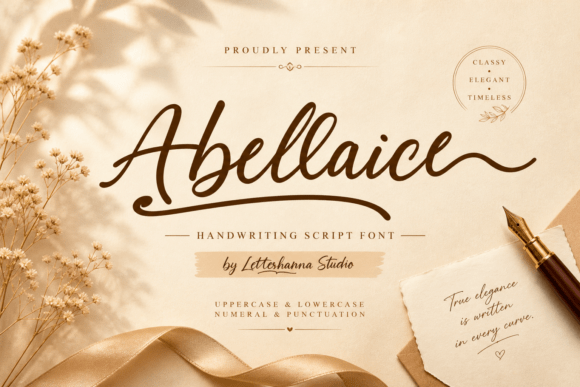
Introducing Abellaice Font: Elevate Your Designs with Elegance
Are you on the hunt for a font that exudes elegance, sophistication, and a touch of romance? Look no further than Abellaice, a stunning script font that is sure to captivate your audience. With its ravishing style and versatility, Abellaice is the perfect addition to any designer’s toolkit.
The Charm of Abellaice Script
Abellaice is a graceful script font that boasts a unique, hand-lettered feel. Its flowing lines, intricate swashes, and stylistic alternates make it an ideal choice for creating beautiful wedding invitations, stationary art, social media posts, and more. Whether you’re a designer, crafty DIY enthusiast, or simply someone who appreciates the art of typography, Abellaice is sure to leave a lasting impression.
One of the standout features of Abellaice Script is its PUA (Private Use Area) encoding. This means that you can easily access all glyphs and swashes, allowing you to add an extra layer of creativity and customization to your designs. With Abellaice, you can effortlessly create stunning visual content that sets you apart from the crowd.
Abellaice is an incredibly versatile font, suitable for a wide range of design applications. Here are just a few ideas to get you started:
- Wedding Invitations and Stationery: Create beautiful, one-of-a-kind wedding invitations, save-the-dates, and stationery with Abellaice.
- Social Media Posts: Elevate your social media game with eye-catching posts, quotes, and graphics featuring Abellaice.
- Branding and Logos: Use Abellaice to create stunning logos, business cards, and letterheads that reflect your brand’s personality.
- Advertisements and Packaging: Add a touch of elegance to your advertisements, product packaging, and labels with Abellaice.
- Photography and Watermarks: Use Abellaice to create beautiful watermarks, photo captions, and other visual elements that complement your photography.
Why Choose Abellaice?
So, what sets Abellaice apart from other script fonts on the market? Here are just a few reasons why designers and crafters love Abellaice:
- Unique, Hand-Lettered Feel: Abellaice boasts a distinctive, hand-lettered style that adds a touch of warmth and personality to your designs.
- Highly Customizable: With PUA encoding and a range of swashes, ligatures, and stylistic alternates, Abellaice offers endless possibilities for customization.
- Elegant and Versatile: Abellaice is suitable for a wide range of design applications, from wedding invitations to advertisements and more.
Get Creative with Abellaice
Ready to fall in love with Abellaice? Whether you’re a seasoned designer or a crafty DIY enthusiast, Abellaice is the perfect addition to your toolkit. With its ravishing style, versatility, and ease of use, Abellaice is sure to elevate your designs and leave a lasting impression on your audience.